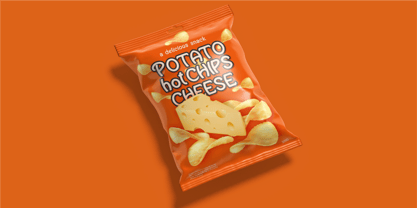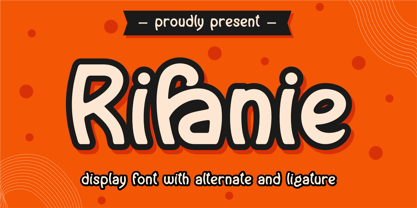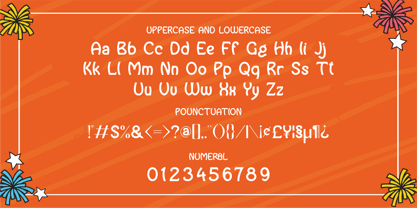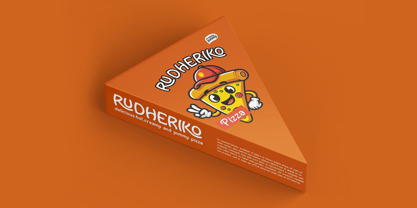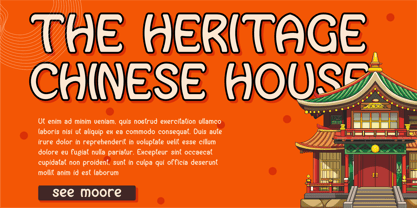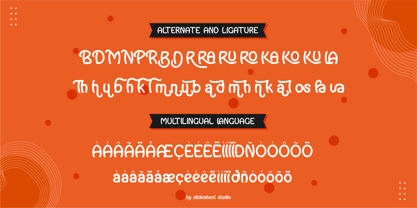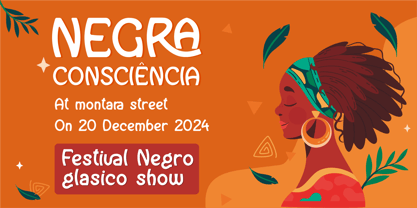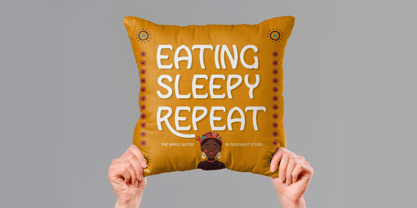
Rifanie
The Rifanie Font Family was designed by Ahmad Riqi and published by Slide Shoot. Rifanie contains 1 styles. More about this family
Introducing Rifanie - An elegant modern display font. Its clean and minimalistic works wonderfully on its own for logos, headlines, posters, packaging and many more! And with Three different weights to choose, your option to create more unique and versatile design is a lot wider. Have fun and create more.. Your Imagination only your limit!!